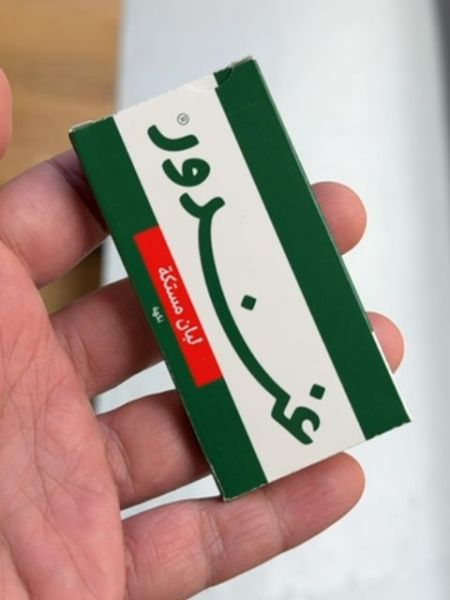
Gandour
This product is chewing gum, designed for freshening breath and providing a refreshing flavor experience.
The typography on the packaging uses a bold, sans-serif script that is both modern and traditional in its approach. The Arabic lettering is clear and legible, complementing the product’s simple yet effective design.
The packaging features a rectangular box design with a green and white color scheme. A prominent red banner highlights key product information, creating a visually striking appearance.
- Gandour is a brand known for confectionery products.
- The product is popular in Middle Eastern countries.
- It often features traditional flavors that appeal to regional tastes.